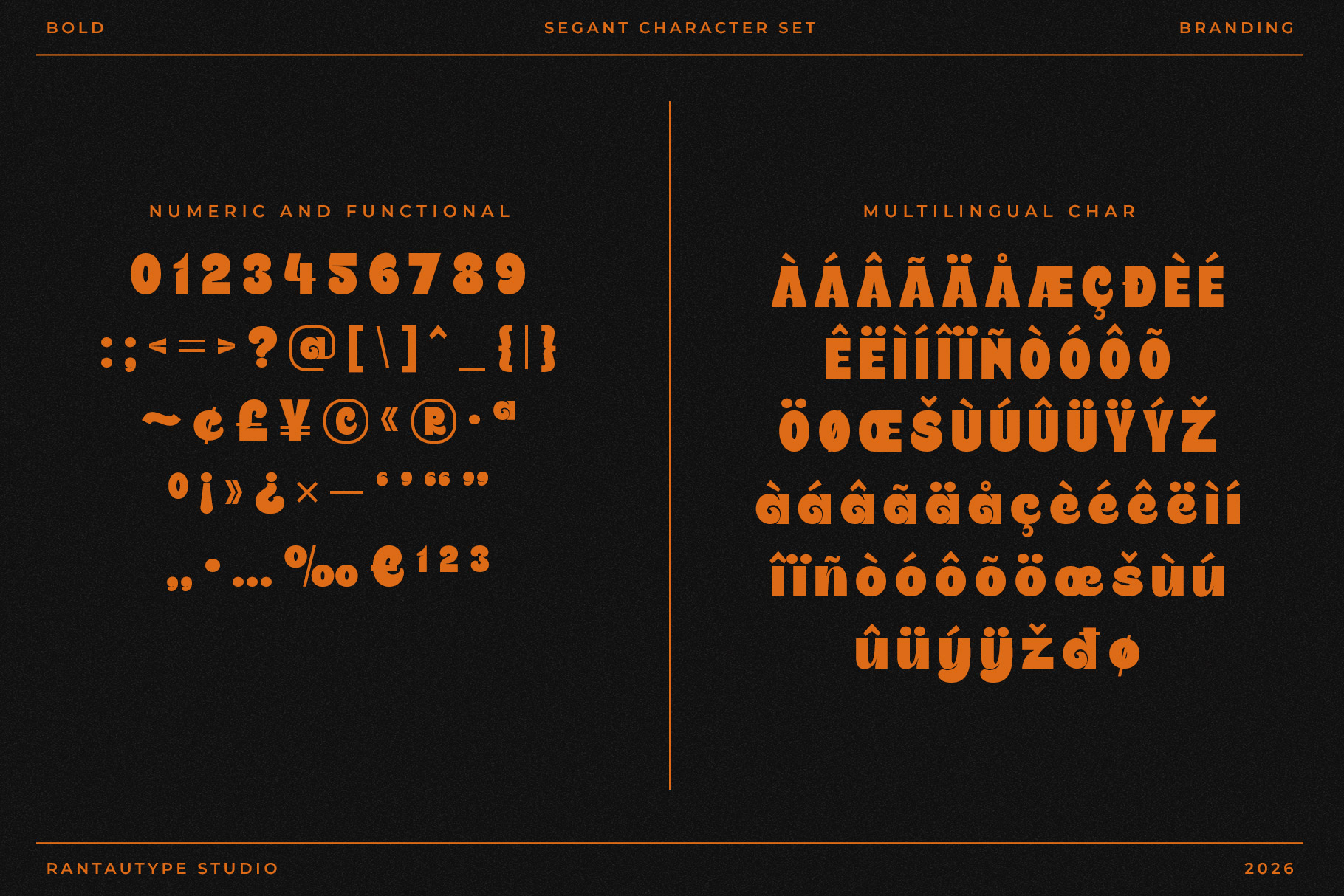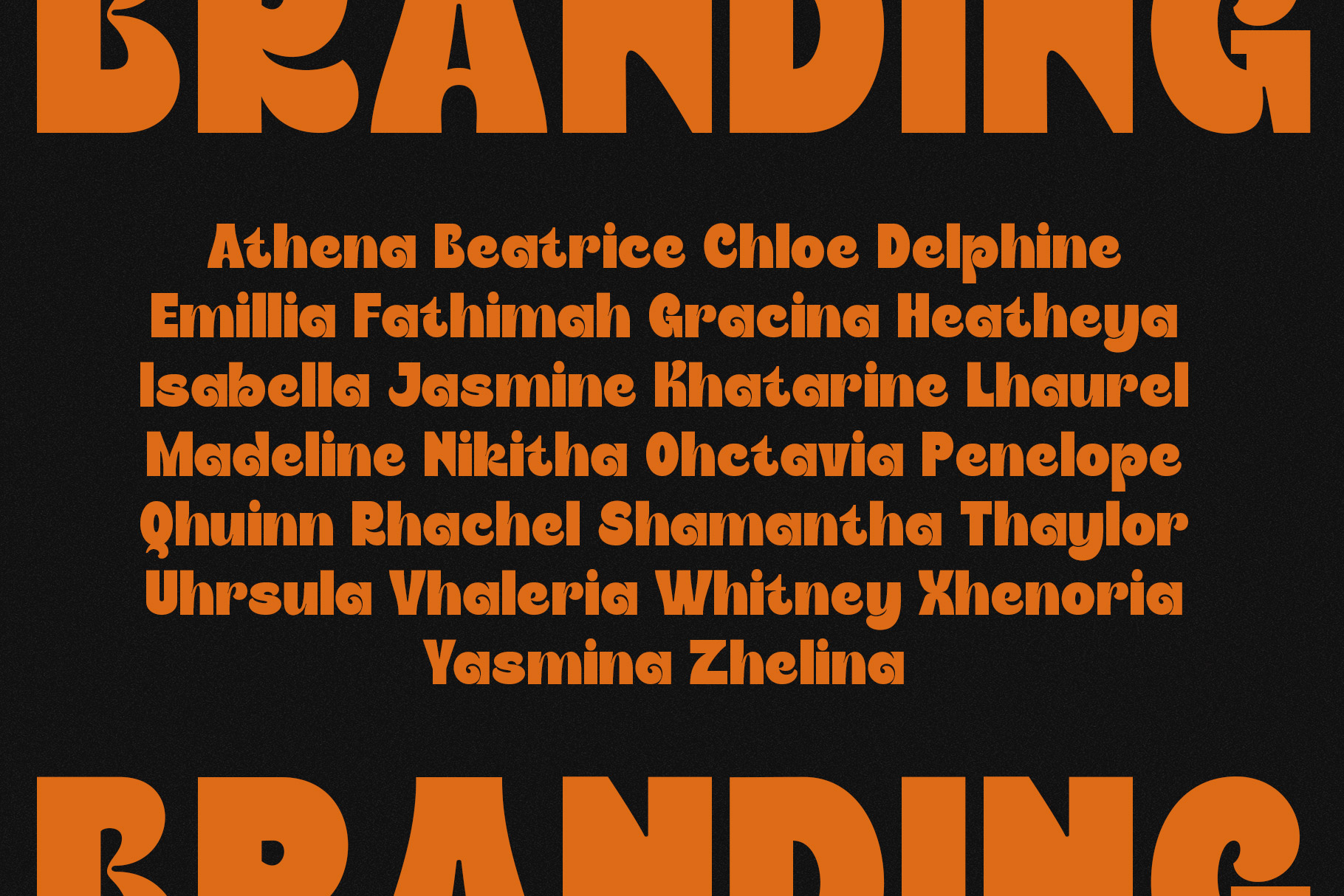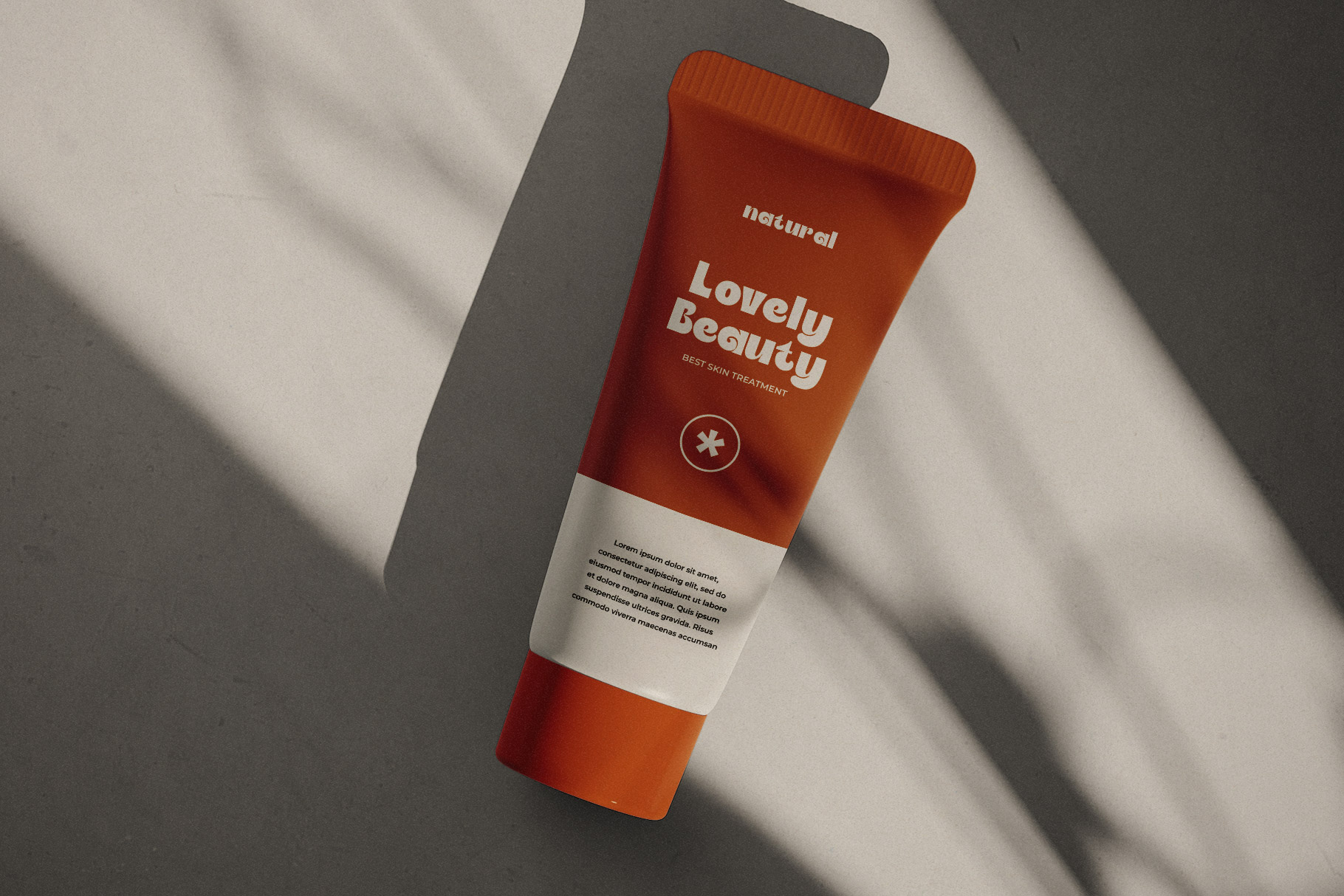
Segant Bold Branding Sans Font
Segant is bold sans font made by rantautype studio. Segant bring confident and strong but look plyaful. Segant is a perfectly choice for any creative endeavor, creating, modern, lifestyle design such as logotype, title, cover, branding, invitations, wedding designs, display and magazine, social media posts, advertisements, printed quotes, product packaging, corporate brand, product designs, labels, photography, watermarks, special events and any other project with retro touch.